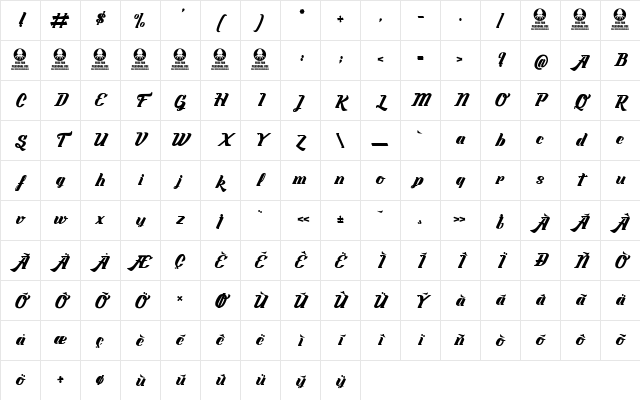
Complete Labyrinthe du Paradis Regular glyph index. Displaying only characters natively supported by Labyrinthe du Paradis Regular font.
Labyrinthe du Paradis is a composed and adaptable typeface that performs quietly and consistently across a wide range of design contexts.